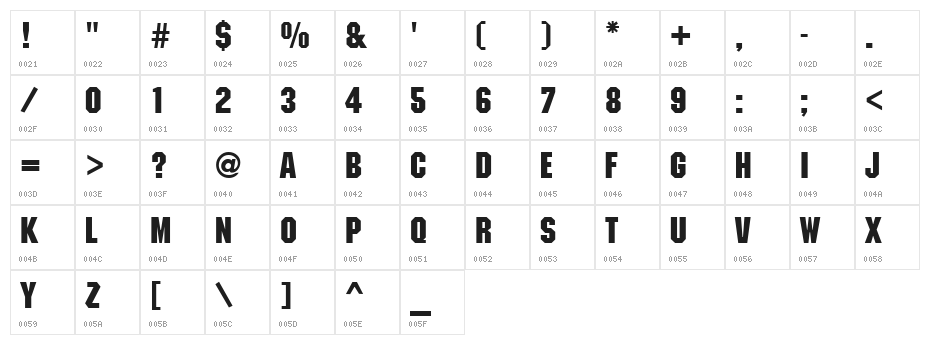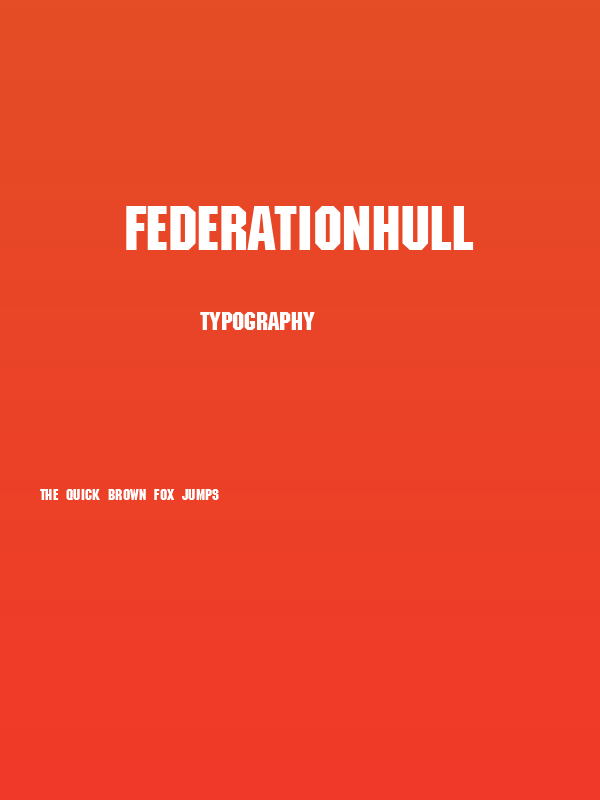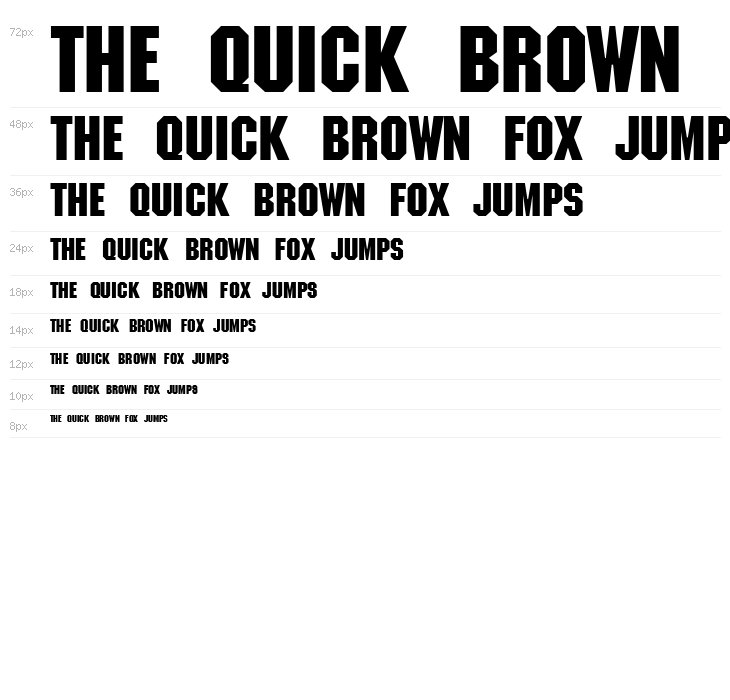
FederationHull Font
FederationHull Description
This font features a bold and commanding presence with its blocky, geometric letterforms. The characters are uniformly wide, with sharp angles and a strong, industrial aesthetic. The uppercase letters are particularly striking, with a consistent height and width that convey a sense of stability and strength. The numbers and special characters maintain this robust style, ensuring a cohesive look across all text. The font's design is reminiscent of vintage sports or military typefaces, making it ideal for projects that require a bold and authoritative visual impact.
| Overall Style | Vintage |
| Proposed Projects | Ideal for sports branding, military-themed designs, posters, and logos that require a bold and authoritative presence. |